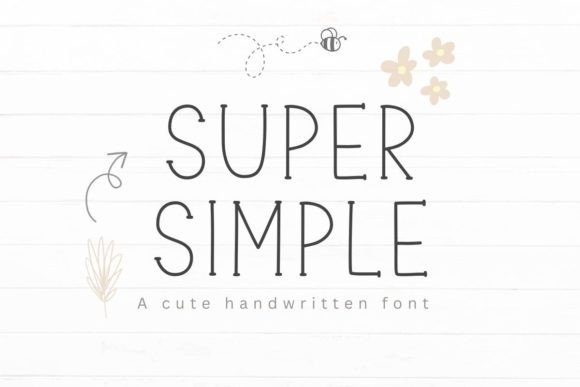
Introducing Super Simple Font, the ultimate script font designed specifically for those seeking a font for handwriting practice. Created by chiraa.design, this font is not only visually appealing but also offers a seamless writing experience that will captivate your senses.
With its simple and neat handwritten style, Super Simple Font is the perfect companion for all your digital note-taking needs. Whether you're jotting down thoughts, creating to-do lists, or even sketching out your next big idea, this font will elevate your writing to a whole new level.
But that's not all! Super Simple Font is incredibly versatile, making it an ideal choice for a wide range of projects. Let your creativity run wild as you incorporate this font into your blog posts, adding a touch of elegance and personality to your words. Create stunning logos and branding materials that leave a lasting impression on your audience. Design eye-catching digital planners that are both functional and visually appealing. Craft invitations and greeting cards that stand out from the crowd. Enhance your photo albums and decorations with a touch of sophistication.
What sets Super Simple Font apart is its ability to evoke emotions and bring your words to life. Each stroke and curve of this font exudes a sense of warmth, authenticity, and creativity. Unlock your inner artist and let your words dance across the page with grace and style.
So why wait? Take your handwriting practice to the next level with Super Simple Font. Let its beauty inspire you, its simplicity empower you, and its versatility unleash your creativity. Whether you're a blogger, designer, or simply someone who appreciates the art of handwriting, this font is a must-have in your collection.